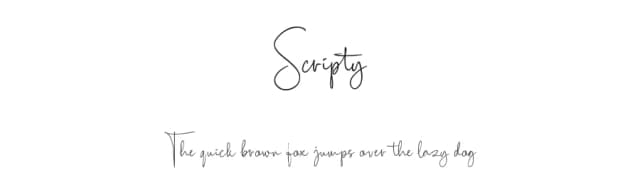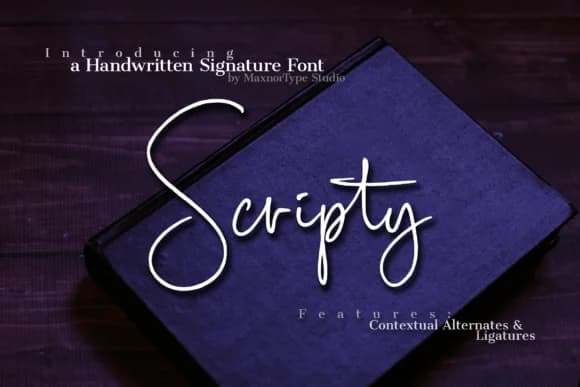
Scripty by MaxnorType captures the fluid, expressive quality of genuine handwriting with a signature-style script that flows naturally across the page. Each letterform balances the organic feel of a hand-drawn stroke with enough consistency to work across full design systems without losing character. The result reads as authentically personal while maintaining legibility, keeping that human touch alive without sacrificing practical usability in print or digital contexts.
Wedding invitation suites gain immediate elegance from Scripty's warmth and refined letterforms. Artisan product labels on handmade cosmetics and skincare lines showcase its organic rhythm beautifully, lending credibility to small makers. Custom stationery and monogrammed pieces feel thoughtfully personalized rather than templated. Boutique packaging, personal branding for independent businesses, and hand-lettered social media graphics all benefit from that crafted quality. Logos designed to feel approachable rather than corporate take on genuine personality through this typeface. Book illustrations and chapter headers benefit from its conversational tone as well.
Scripty Font is a script font that shines as a display or heading face. Pair it with a clean sans-serif or serif font for body text β the contrast creates a clear hierarchy while the two styles stay balanced and easy to read.
Scripty Font
by MaxnorType